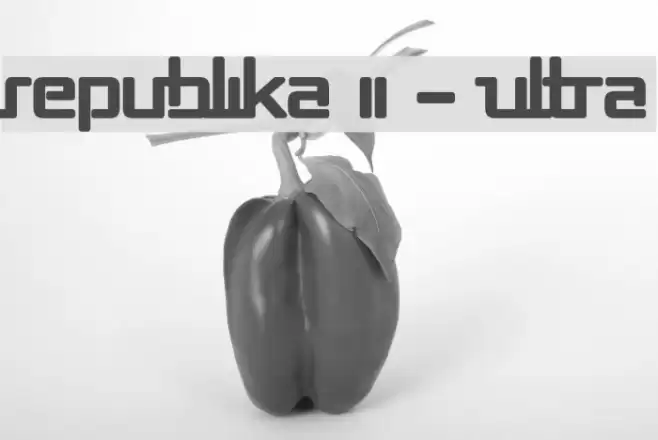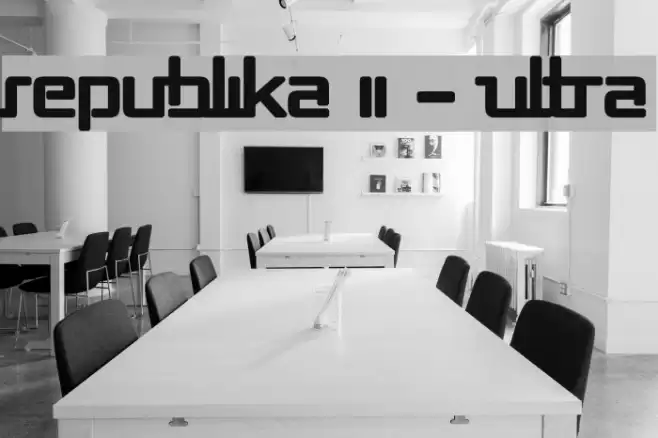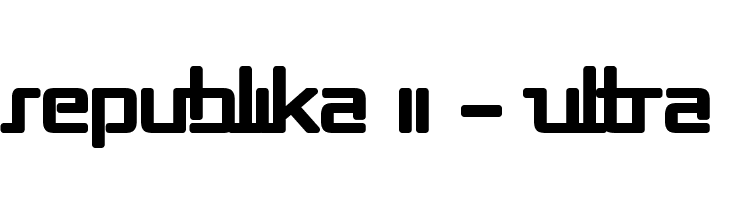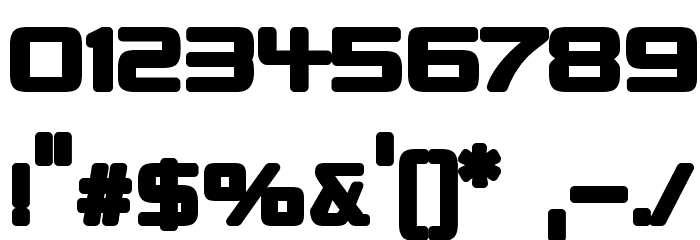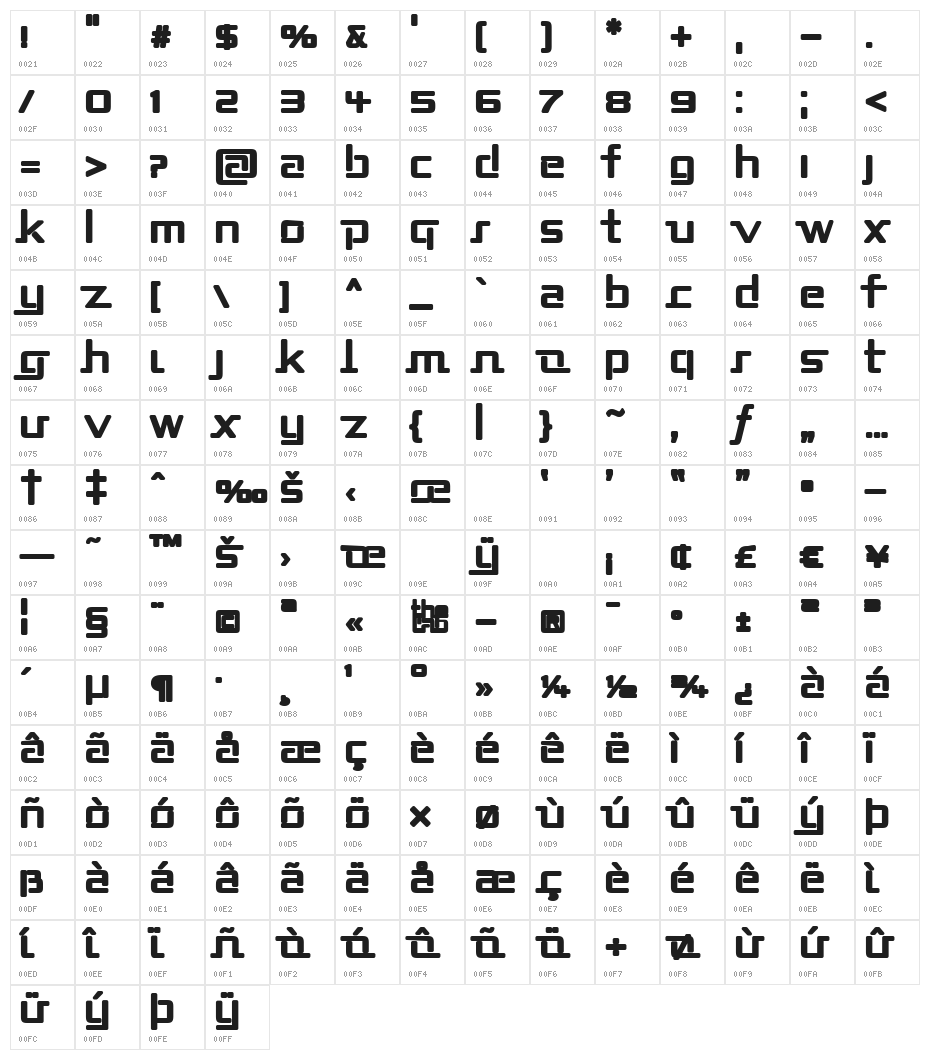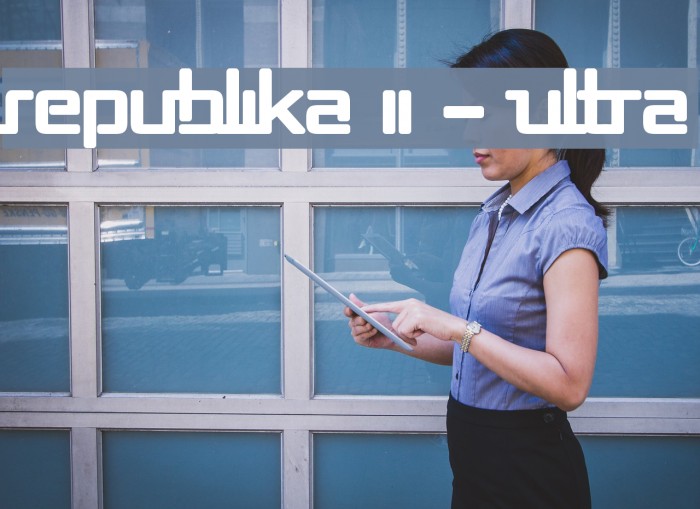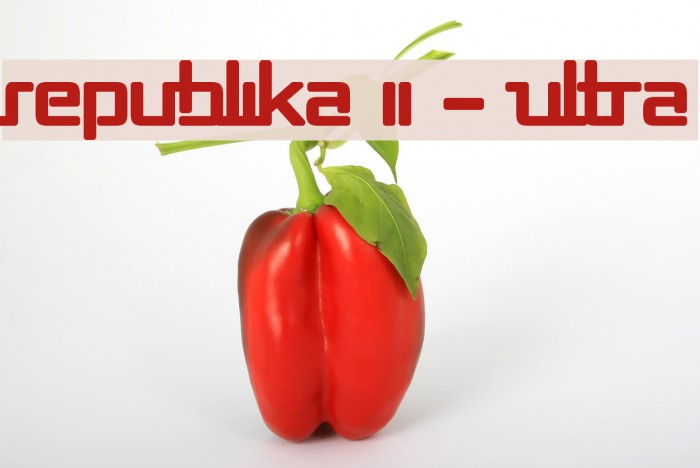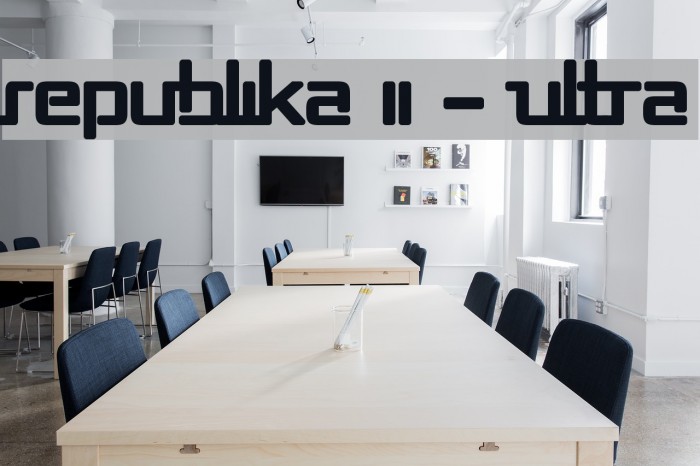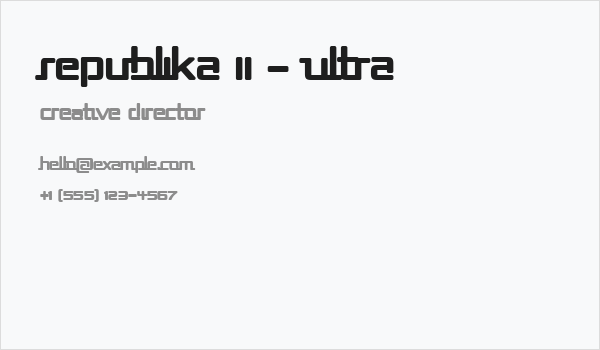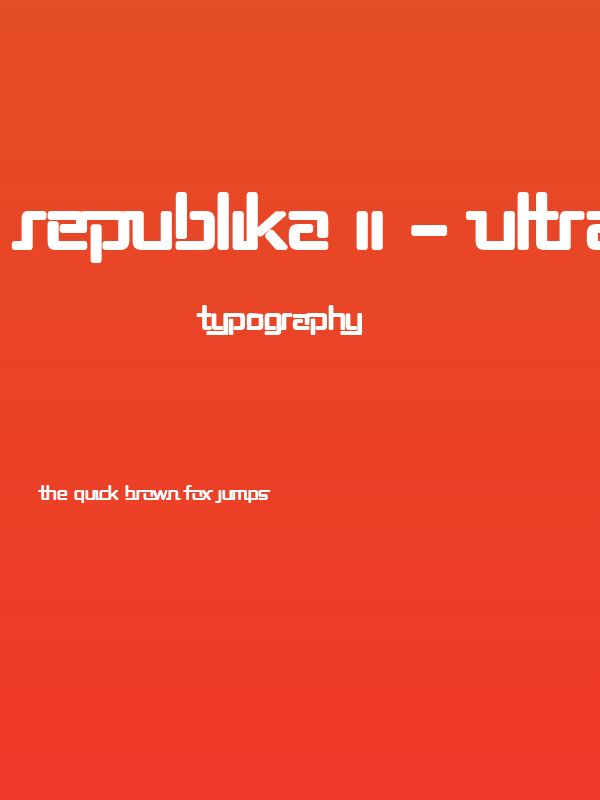
Republika II - Ultra Font
Republika II - Ultra Description
This font features a bold, geometric design with a futuristic and modern aesthetic. The characters are constructed with uniform stroke widths, creating a cohesive and structured appearance. The rounded edges soften the overall look, while maintaining a strong and assertive presence. The uppercase and lowercase letters share a consistent style, enhancing readability and visual harmony. The numerals and special characters are designed to match the boldness and geometric nature of the alphabet, making them suitable for various design applications.
A bold, geometric font with a modern and futuristic style from Uncategorized fonts.
- Proposed Projects: Ideal for technology branding, digital interfaces, video game graphics, and modern advertising campaigns.